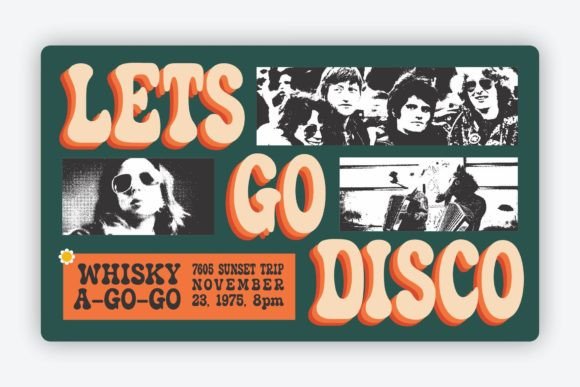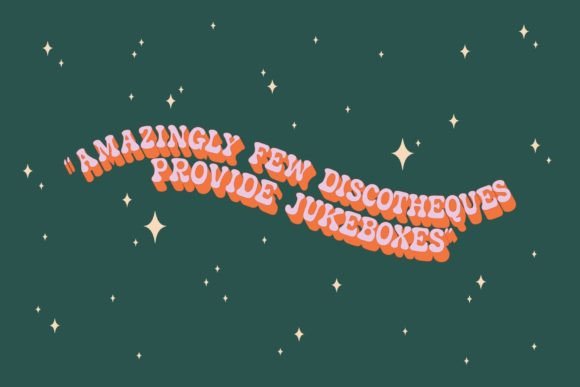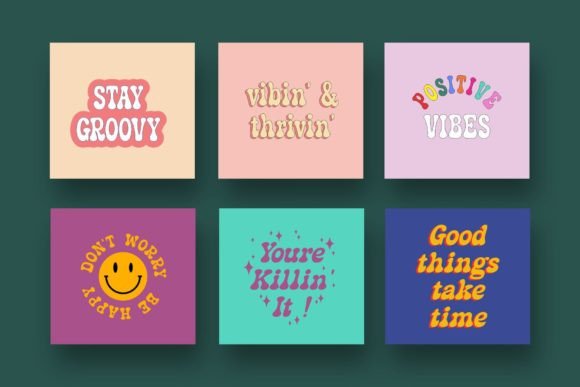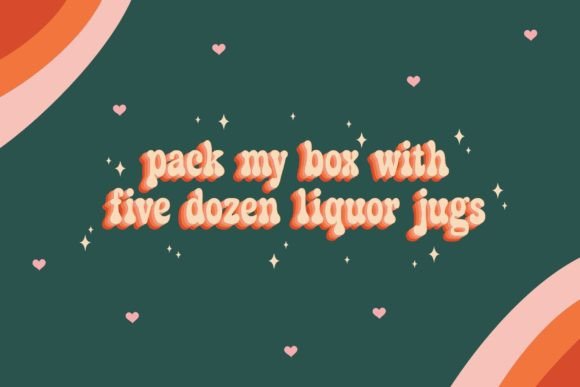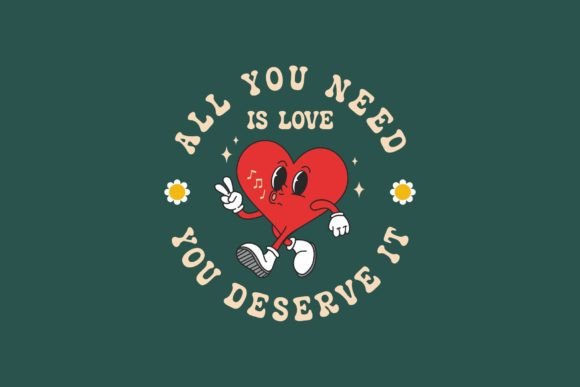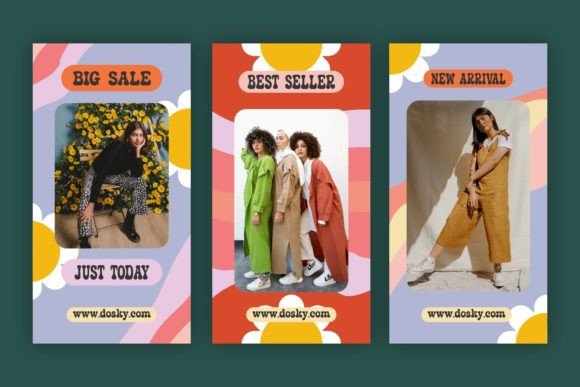
The Groovy World of Dosky Font: A Retro Revival for Your Designs
I’ll never forget the time I was working on a vintage-themed project for a client, and I just couldn’t find the right font to capture that funky, 70s vibe. I scoured the internet, tried countless fonts, but nothing seemed quite right. That was until I stumbled upon Dosky Font – a groovy, retro, bubble font that instantly transported me back to the era of disco and bell-bottom jeans.
A Personal Review: What I Love About Dosky Font
Dosky Font is more than just a font – it’s an experience. With its six font styles (Regular, Condensed, Expanded, and Oblique styles), it’s versatile enough to be used in both fun and formal projects. Here are some things I love about Dosky Font:
- ✨ Its unique, bubble-like design that adds a touch of whimsy to any project
- ✅ The variety of font styles, which allows for endless creative possibilities
- 💫 Its ability to evoke a retro feel, perfect for vintage-themed projects
- 🎉 The font’s playfulness, making it ideal for designs that require a bit of personality
While Dosky Font is an amazing addition to any design project, there are a few things to keep in mind:
- 🤔 The font’s uniqueness may not make it suitable for projects that require a more traditional or formal look
- ⚠️ Some of the font styles may not be as legible at smaller sizes, so be sure to test it out before finalizing your design
The Backstory Behind Dosky Font
Dosky Font was inspired by the iconic designs of the 1970s – an era of disco, bell-bottom jeans, and funky patterns. The font’s creator, a designer with a passion for retro culture, set out to capture the essence of this bygone era in a single font. The result is Dosky – a groovy, bubble font that’s perfect for adding a touch of nostalgia to your designs.
| What type of projects is Dosky Font best suited for? | Dosky Font is versatile and can be used in a variety of projects, from fun and playful designs like invitations and social media graphics, to more formal projects like product packaging and branding. |
| Is Dosky Font available in different languages? | Dosky Font may not support all languages, but it does come with a range of glyphs and special characters to help you create unique designs. |